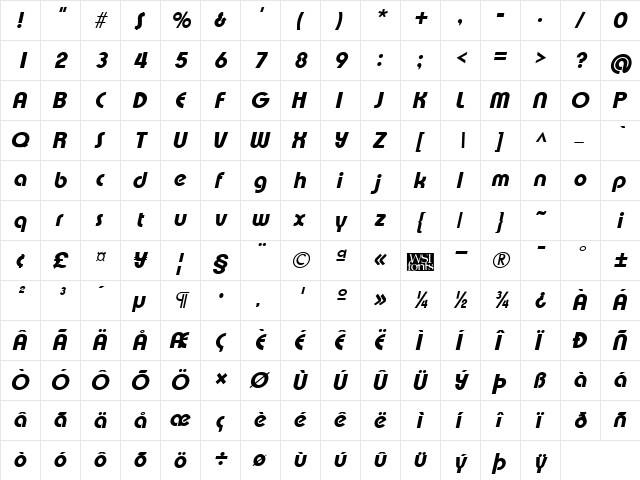
XpressiveHeavy Italic
Design Context for XpressiveHeavy Typeface
XpressiveHeavy takes a measured approach to typography — its balanced proportions and neutral character make it a reliable workhorse for both digital and print work. Its italic angle brings a sense of urgency and motion to the letterforms.
Pro Tip: Use XpressiveHeavy for emphasis, pull quotes, and subheadings where its slanted energy can add rhythm to the layout.